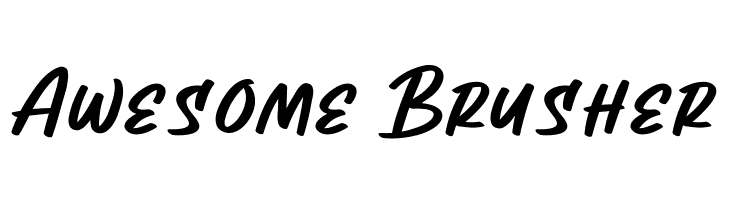
A playful and casual script font with fluid, connected letterforms.
A bold, handwritten font with a lively and energetic style.
A bold, hand-painted style font with textured, expressive strokes.
A bold, distressed font with star cutouts, ideal for edgy designs.
A modern, elegant handwritten script with fluid, graceful strokes.
A dynamic, cursive script font with elegant, flowing strokes.
A bold, hand-drawn script font with a lively and playful style.
A modern, cursive font with elegant, flowing lines.
A bold, playful handwritten font with an energetic and informal style.
A bold, angular, and italicized font with a modern and dynamic style.
A fluid, handwritten-style font with a personal and artistic touch.
A playful and energetic handwritten script font with bold, smooth strokes.
A bold serif typeface with high contrast and elegant design.
An elegant, flowing script font with ornate uppercase and smooth lowercase letters.
A flowing, cursive script font with elegant, connected strokes.
A flowing, handwritten font with a casual and artistic style.
A modern, italic, and condensed font with a sleek and dynamic style.
A modern, extra condensed, extra bold sans-serif font with tight spacing and minimal contrast.
A tall, narrow, handwritten sans-serif font with a casual feel.
A dynamic and elegant cursive script font with a flowing, handwritten style.
A lively, cursive font with elegant curves and a hand-drawn appearance.
A playful, curly font with a handwritten, whimsical style.
A bold, decorative font with rounded terminals and a vintage railway-inspired style.
An elegant, flowing script font with bold, cursive letterforms.
A decorative font with vine-like embellishments and organic flourishes.
A bold, angular font with a medieval, left-slanted design.
A playful and bold handwritten font with smooth curves and expressive style.
An elegant and flowing script font with a handwritten appearance.
A bold, decorative font with a 3D shadow effect and textured detailing.
A playful, handwritten font with varied stroke thickness and a whimsical style.
A playful, heart-adorned decorative font with bold outlines.
A bold, brush-style font with dynamic and expressive strokes.
A modern, italicized font with a gradient effect and a futuristic design.
A whimsical and decorative font with bold, swirling elements.